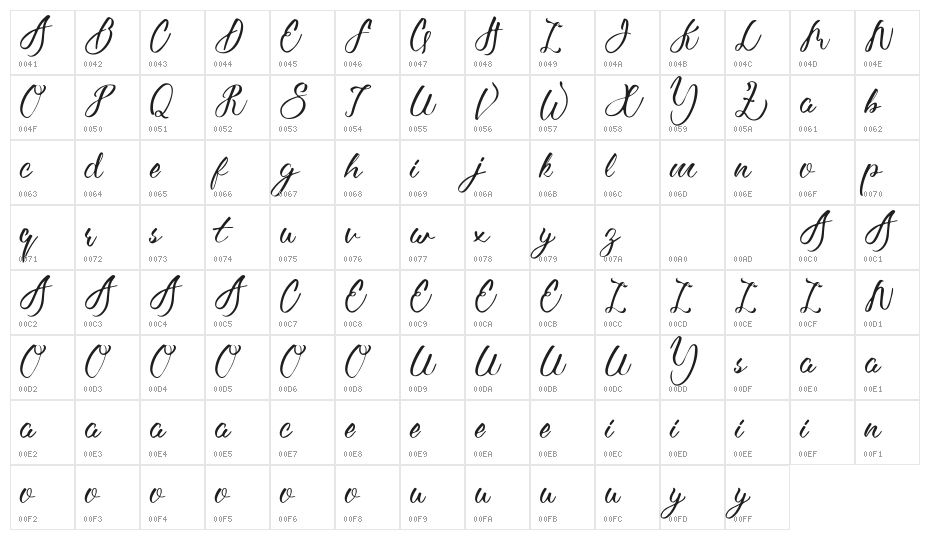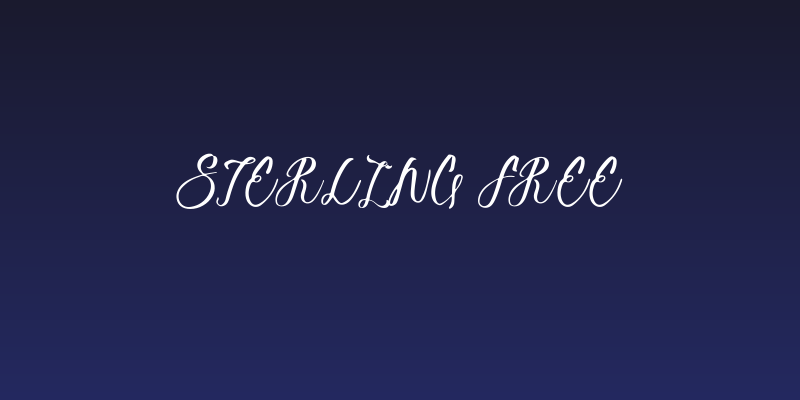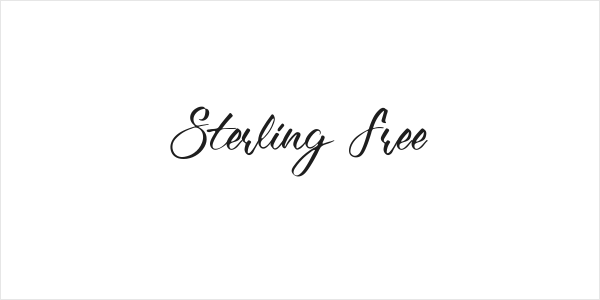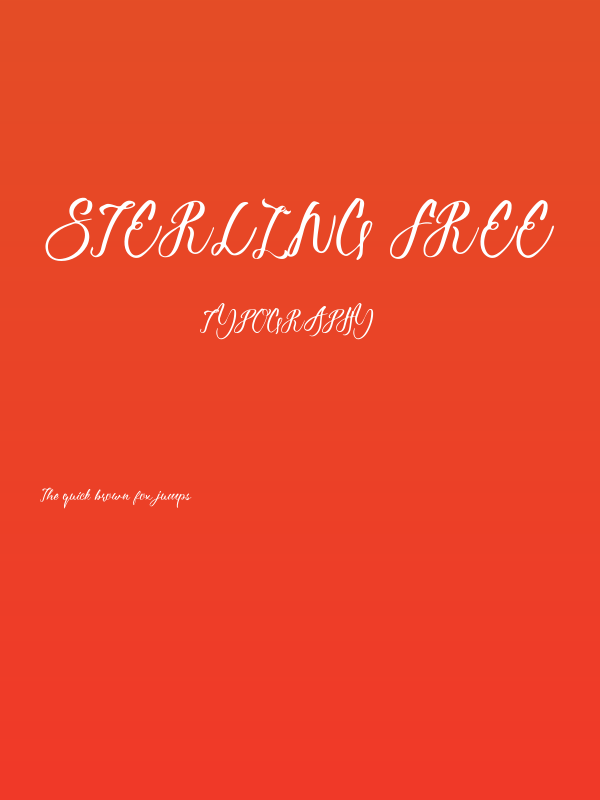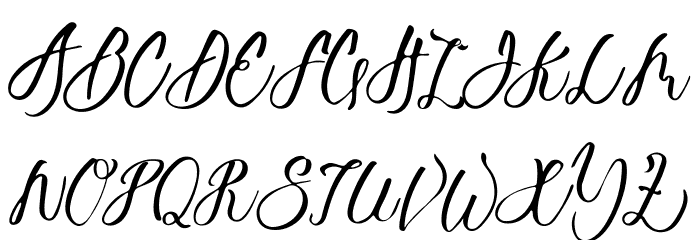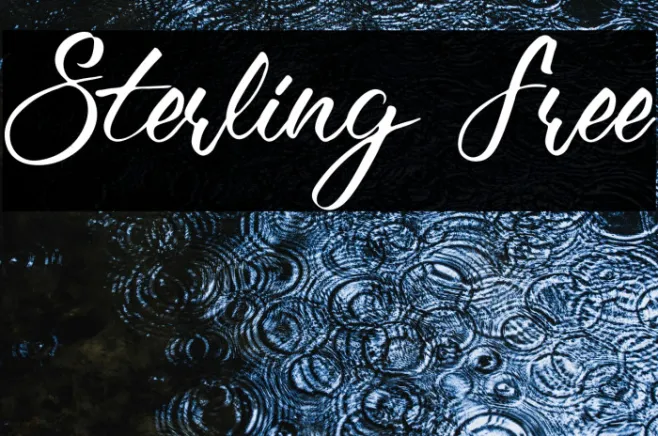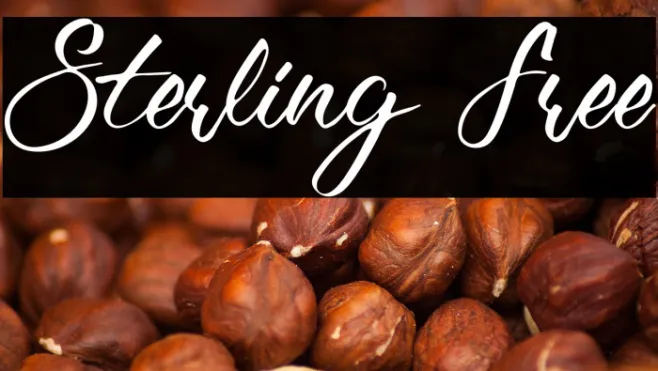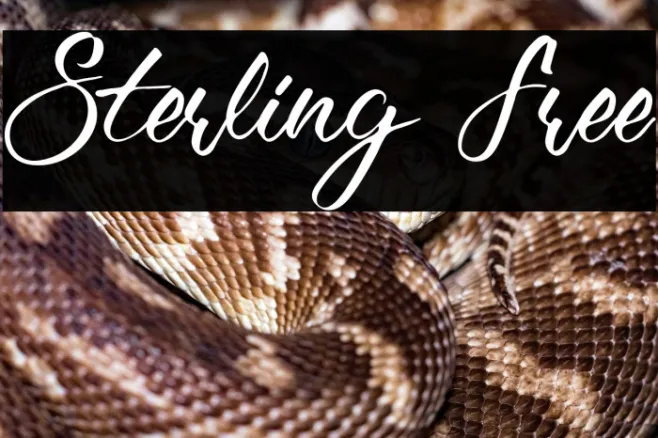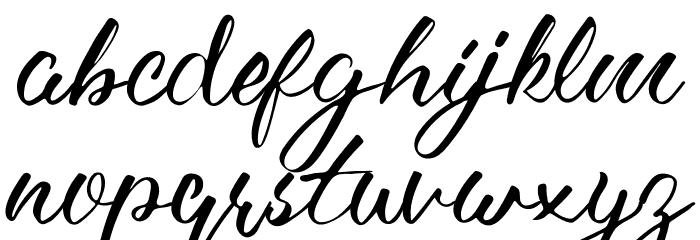
Sterling Free Font
Sterling Free Description
This font exudes a sense of elegance and fluidity, characterized by its cursive script style. The letters are interconnected, creating a seamless flow that mimics natural handwriting. The strokes are smooth and consistent, with a slight slant that adds to its graceful appearance. The uppercase letters are bold and prominent, while the lowercase letters maintain a delicate balance, offering a harmonious blend of formality and creativity. This font is ideal for projects that require a touch of sophistication and personal flair.